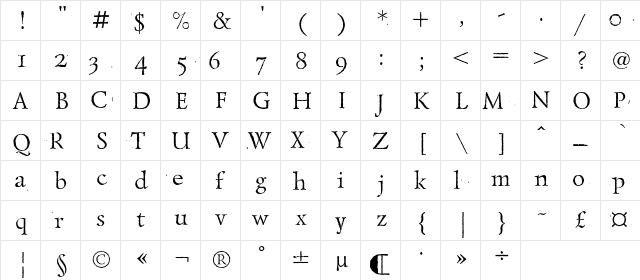
LazurskiAntiqueDisplayC Regular
Design Context for LazurskiAntiqueDisplayC Typeface
LazurskiAntiqueDisplayC has the warm character of retro typography — evoking diners, record sleeves, and the golden age of print advertising.
Ideal for diner signage, record shop branding, 70s/80s-themed projects, and heritage product labels.
Font Pairing: Combine LazurskiAntiqueDisplayC with a simple slab or neutral sans — period-accurate companions reinforce the vintage feel without competing for attention.
Pro Tip: Lean into LazurskiAntiqueDisplayC's period character by pairing it with aged paper textures, muted colour palettes, and vintage illustration styles.